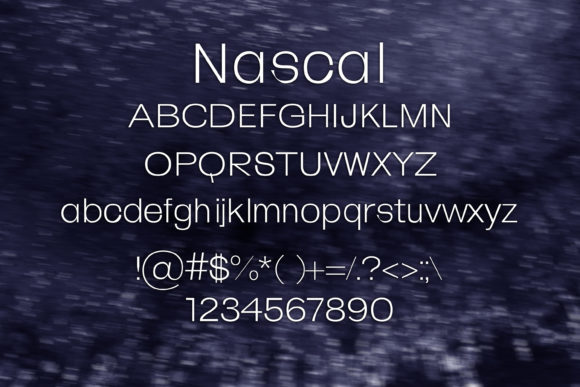
Introduction to Nascal Font
With its modern style, Nascal will turn any design project into a true standout.
With its modern style, Nascal will turn any design project into a true standout!
Key Features of Nascal Font